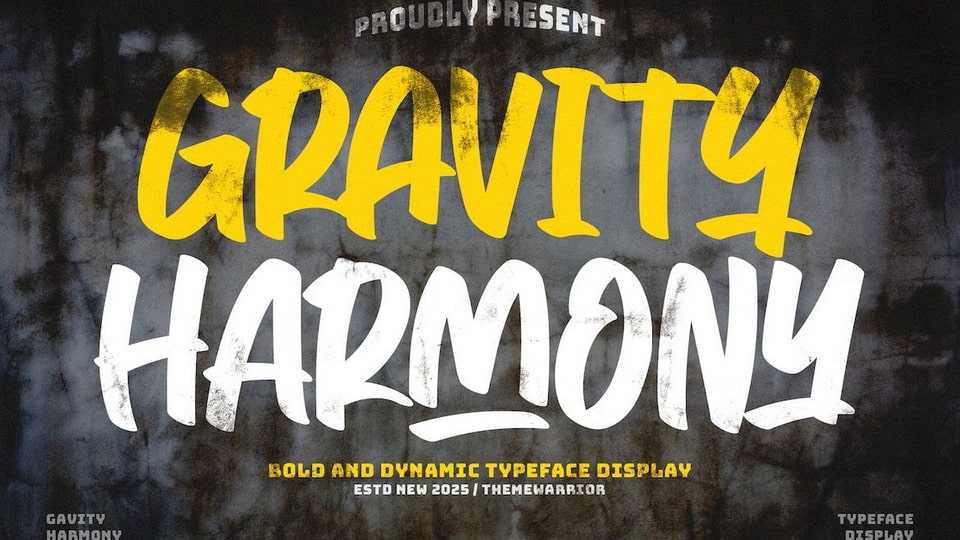
Download Gravity Harmony font, a bold handwritten marker typeface that stands out with its clean, natural style. The font style feels creative and expressive.